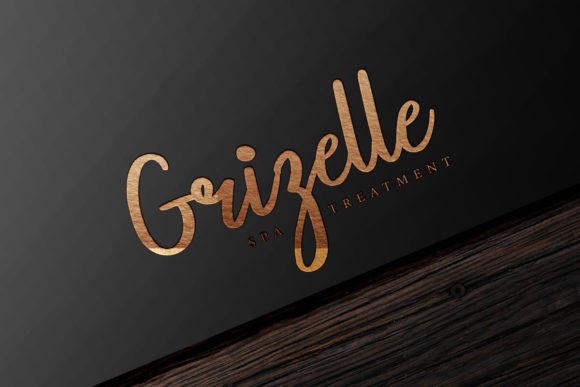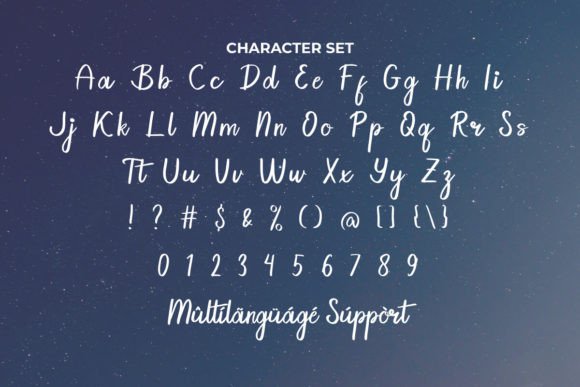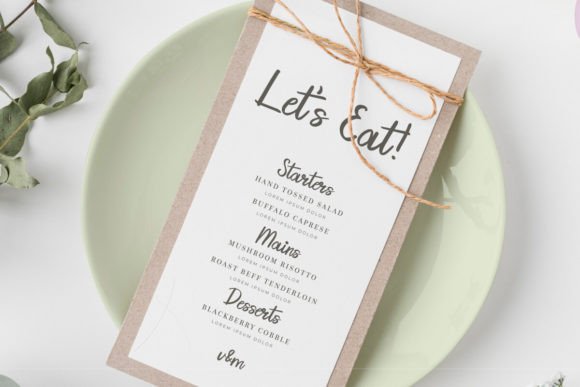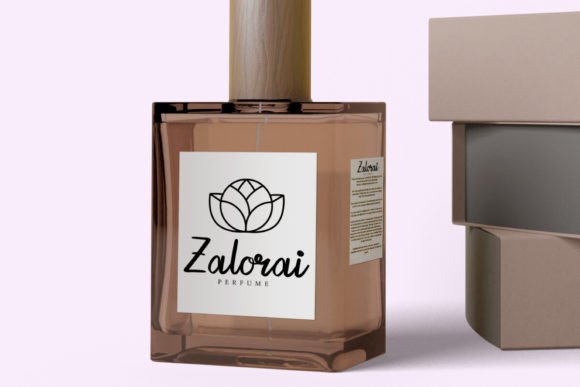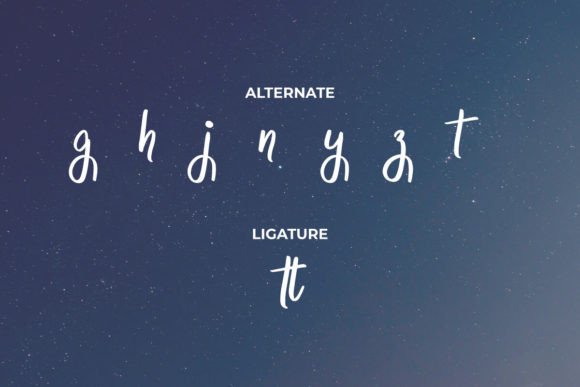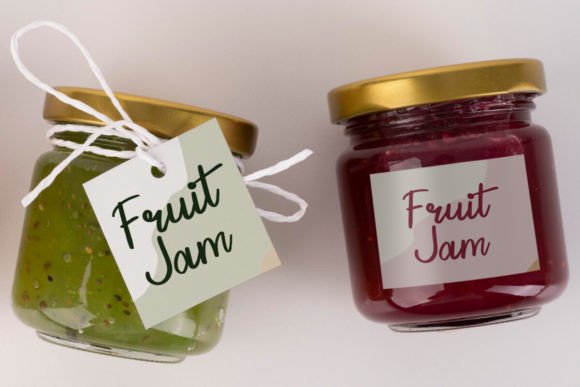
The Birthnight Font: A Simple yet Stunning Handwriting Font for Designers
Have you ever been stuck on a design project, trying to find the perfect font to bring your vision to life? I recall a particularly frustrating experience while working on a branding project for a trendy café. My client wanted a font that was both elegant and casual, but I just couldn’t seem to find the right fit. That’s when I stumbled upon the Birthnight Font, a beautiful, simple handwriting font that instantly grabbed my attention.
As I explored the font further, I realized that its versatility made it suitable for a wide range of industries, from café and clothing brands to cosmetics, event organizers, and more! In this article, I’ll share my honest review of the Birthnight Font, provide a practical guide on how to use it, and explore similar fonts that might tickle your fancy.
An Honest Review of Birthnight Font
- ✨ Simple yet elegant: The Birthnight Font has a beautiful, flowing script that’s perfect for adding a touch of sophistication to your designs.
- ✅ Highly versatile: Whether you’re designing for a café, clothing brand, or cosmetics company, this font adapts seamlessly to different styles and industries.
- 💫 Easy to read: Despite its elegant feel, the font remains clear and readable, even at smaller sizes.
While the Birthnight Font is an excellent choice, there are a few minor quirks to consider:
- 🤔 Limited character set: As with many handwriting fonts, the character set might be limited, which could impact your design choices.
- ⚠️ Not ideal for body text: While readable, the font’s elegant feel makes it better suited for headings and titles rather than lengthy paragraphs.
- Experiment with OpenType features like ligatures and stylistic alternates to add visual interest.
- Choose the Birthnight Font and explore glyphs and stylistic alternates to add depth to your design.
The Story Behind Birthnight Font
While the true story behind the Birthnight Font’s creation remains a mystery, it’s easy to imagine a designer crafting this beautiful font during a late-night brainstorming session. Perhaps they wanted to create a font that captured the essence of a warm, handwritten note – a font that would bring a touch of elegance and whimsy to any design.
| Font Name | Birthnight Font |
| Author | NoahType |
Q: What is the Birthnight Font best suited for?
A: The Birthnight Font is ideal for designs that require a touch of elegance and sophistication, such as headings, titles, and short paragraphs.
Q: Is the Birthnight Font available in different weights or styles?
A: The standard version of the Birthnight Font might not offer multiple weights or styles, but you can experiment with OpenType features to add visual interest.